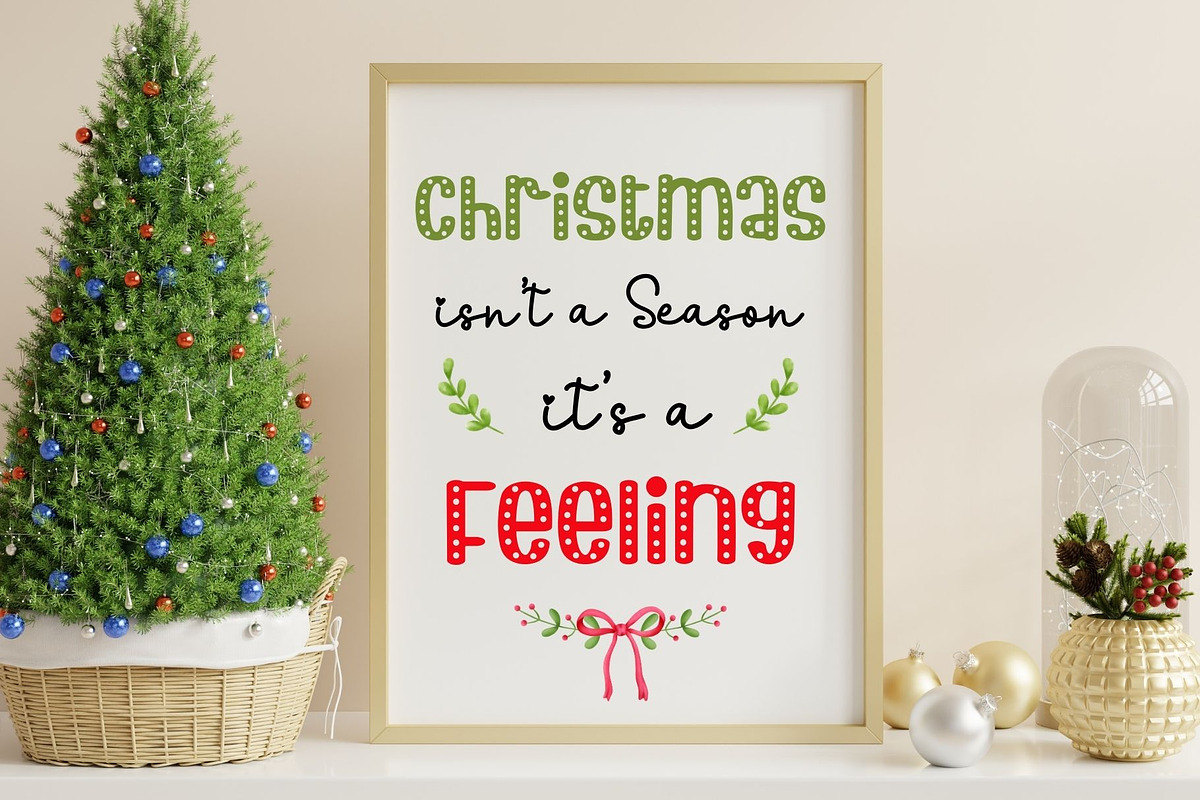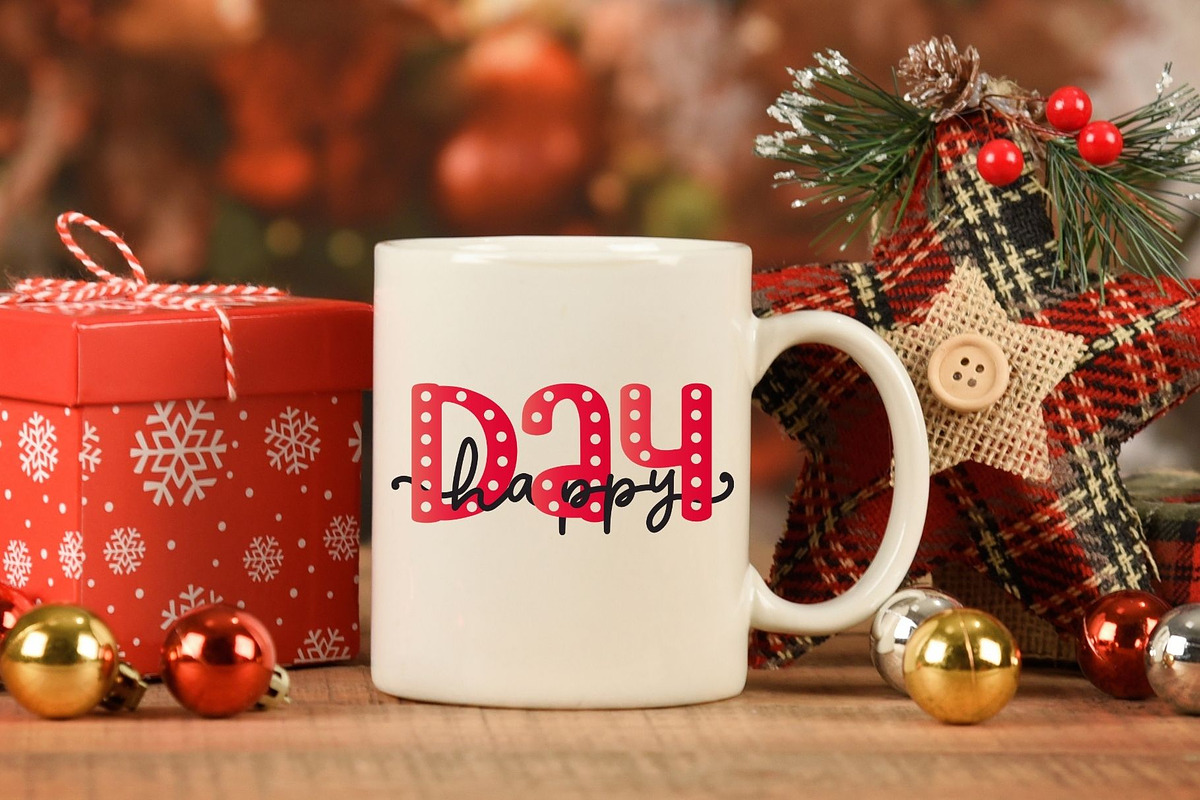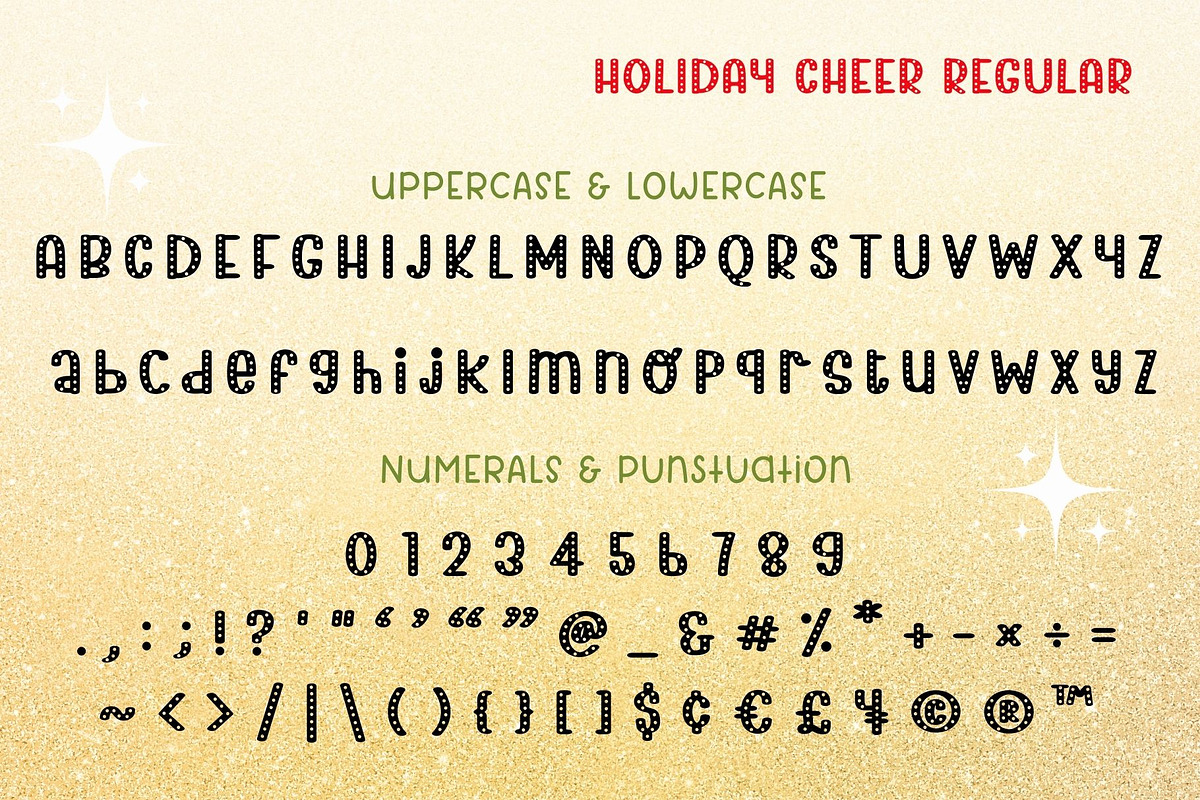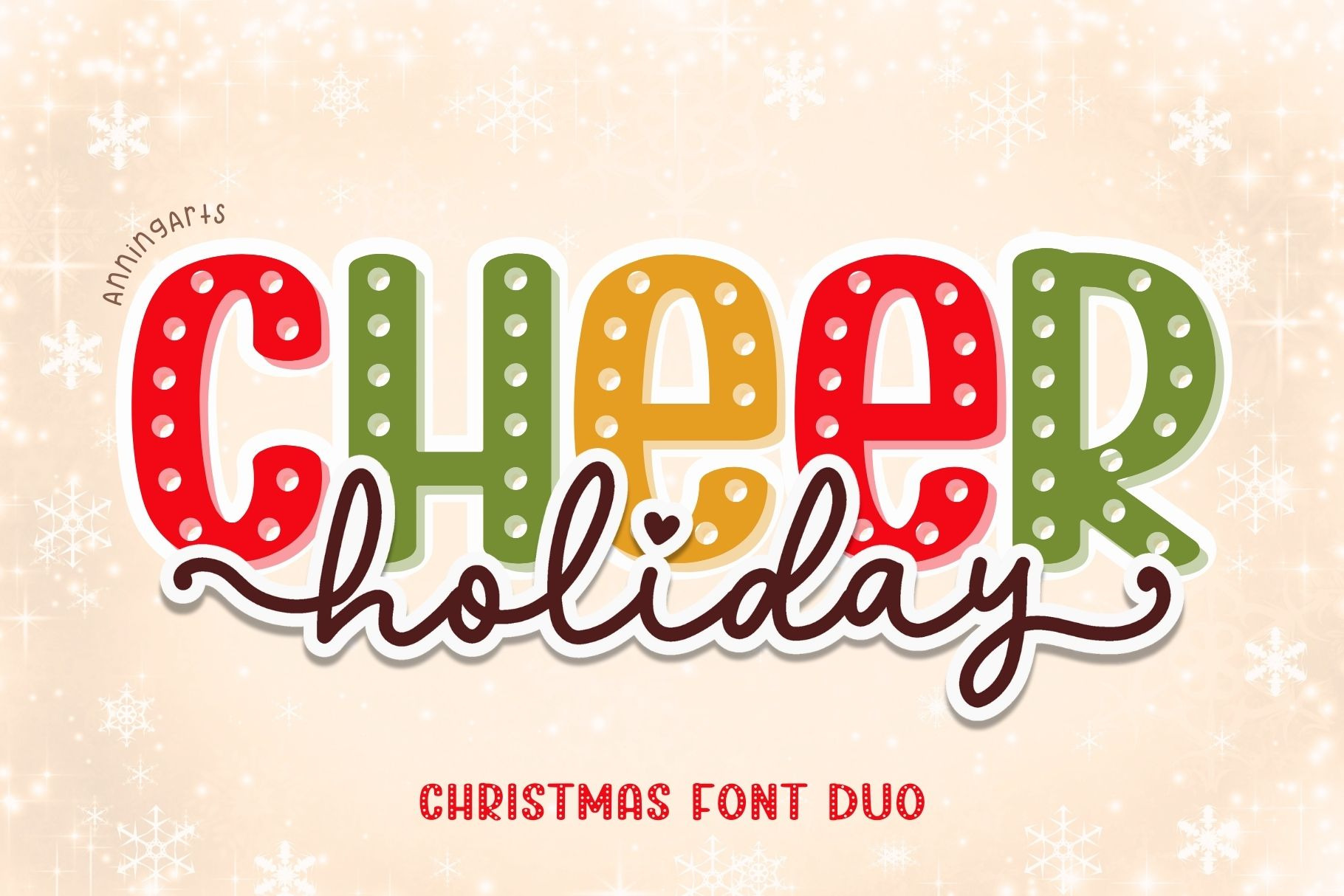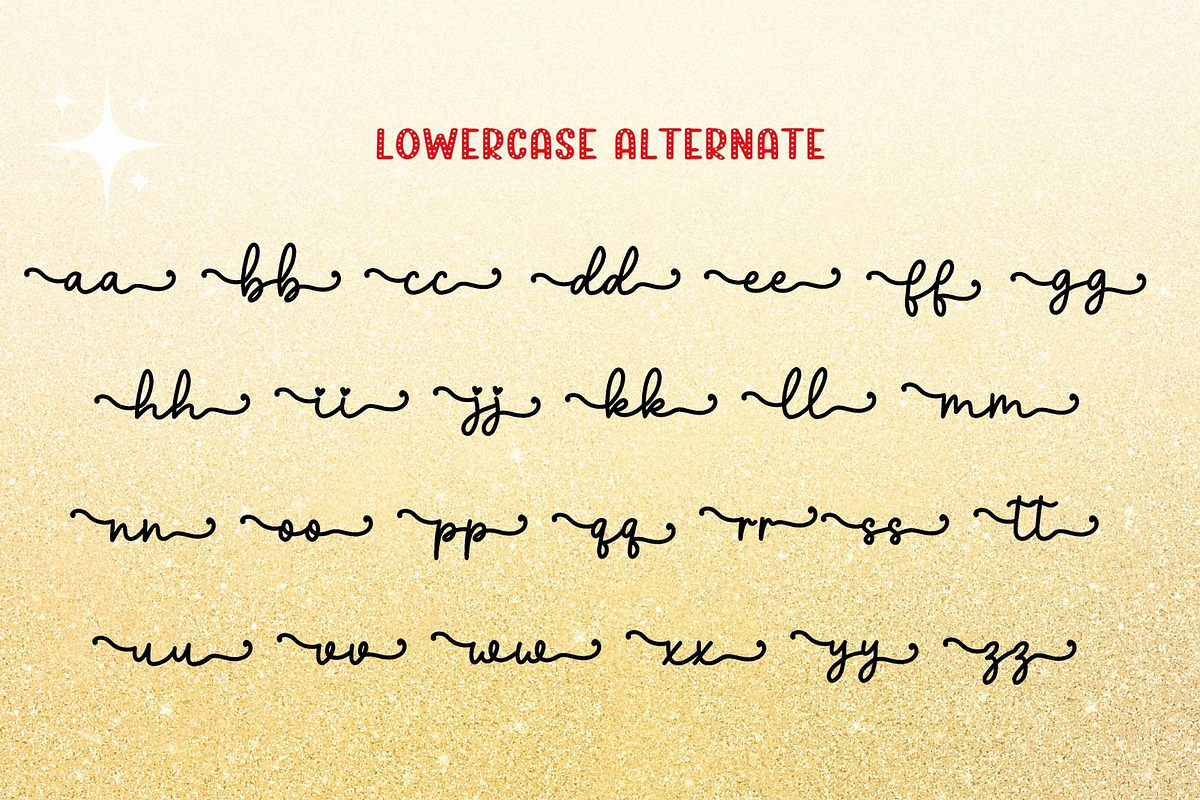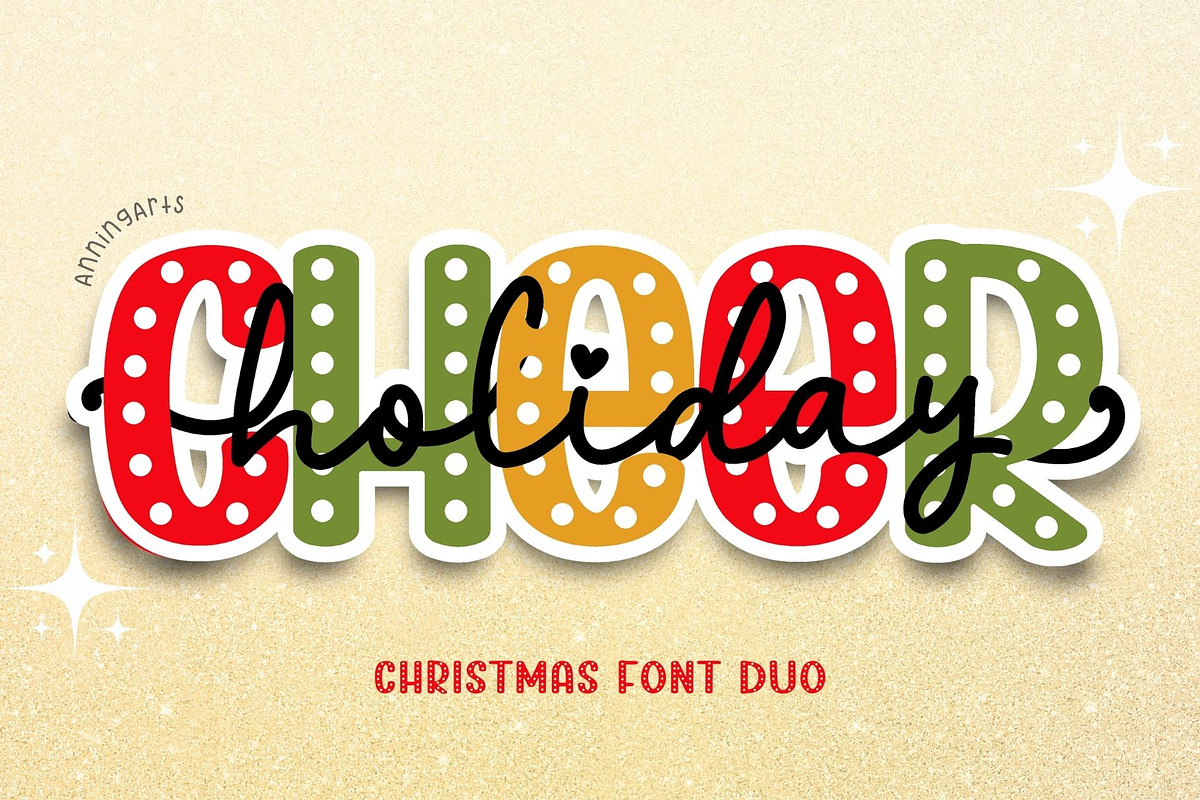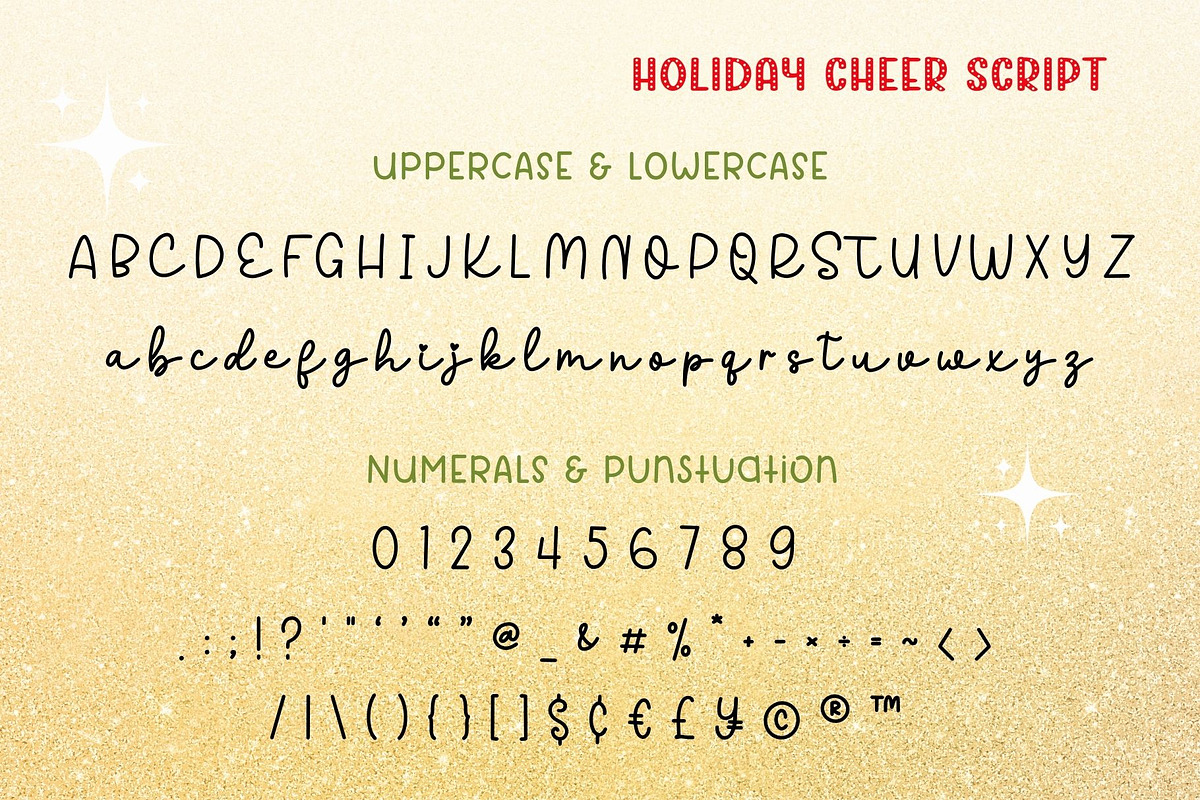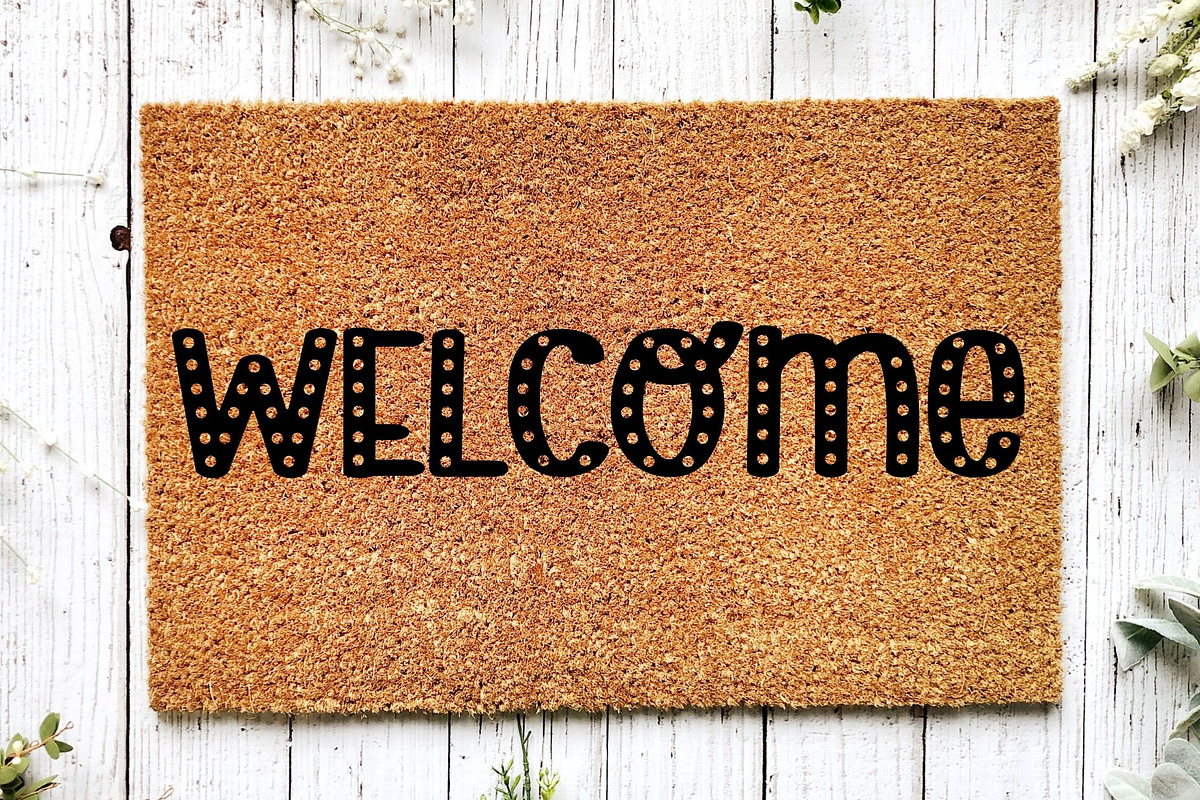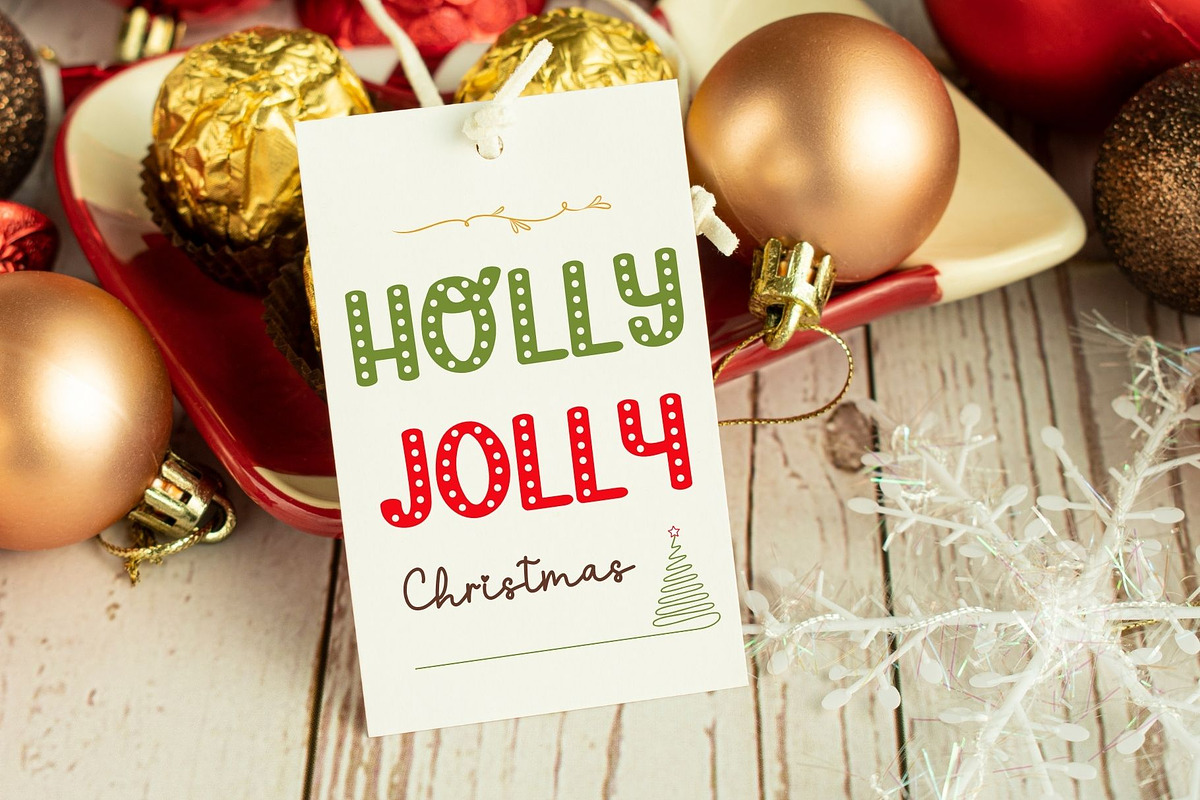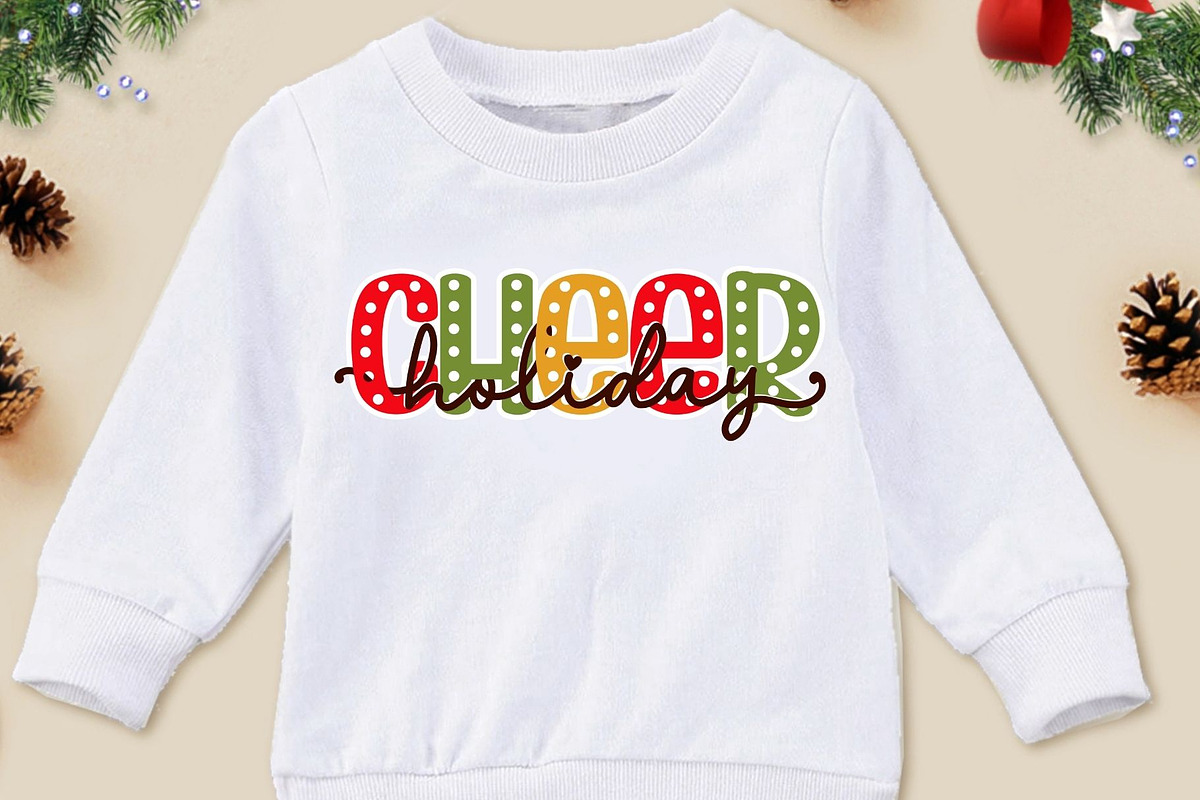
Holiday Cheer Font Duo
Holiday Cheer is a playful font duo. This set consists of a script font and a handwritten font, providing a wide range of unique and attention-grabbing design choices. You can utilize this pair of fonts to create various designs, including mugs, bags, shirts, pillows, and more.